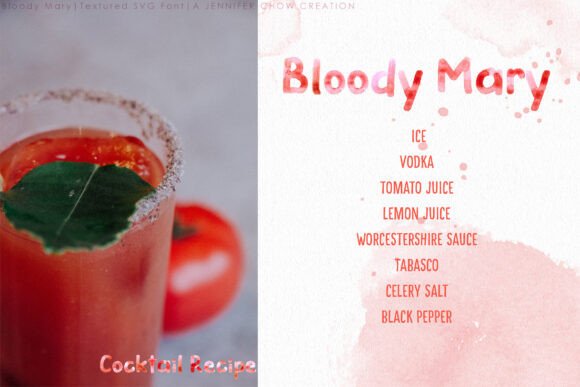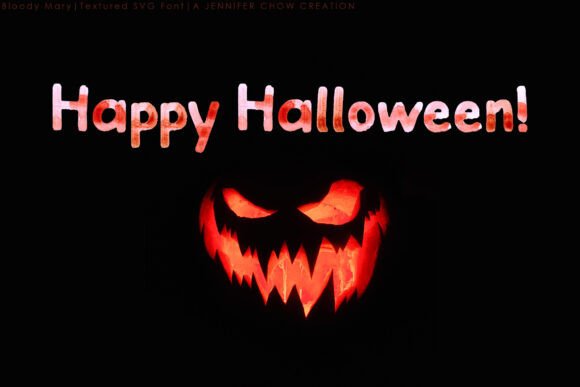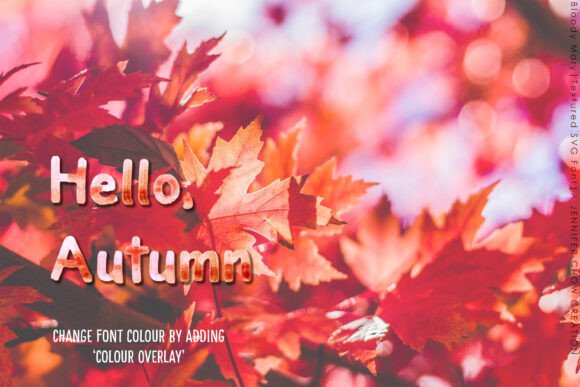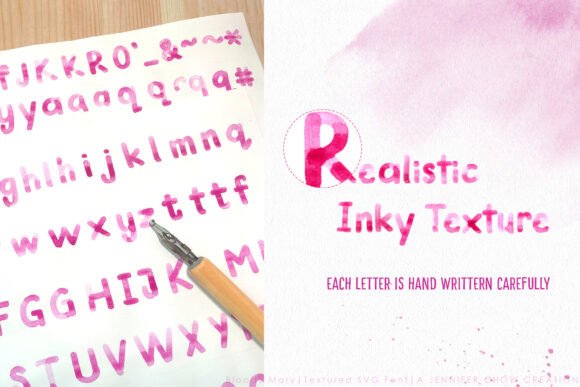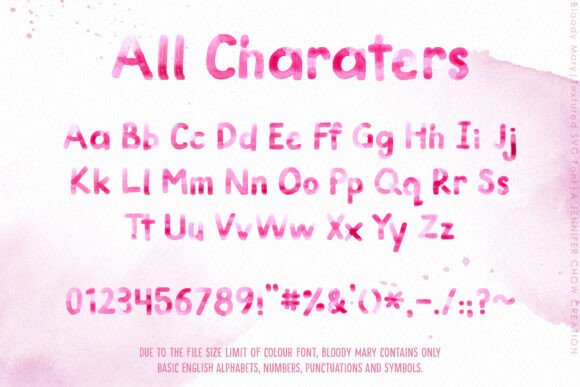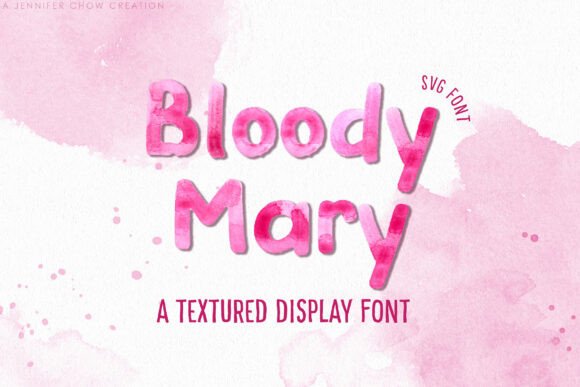
Bloody Mary Font: Adding a Playful Touch to Your Designs
Are you looking for a font that can add a dash of playfulness and authenticity to your designs? Look no further than the Bloody Mary font! This cute and bold color font is perfect for children’s activities, school projects, and any design that needs a fun and lively touch.
What is Bloody Mary Font?
Bloody Mary font is a chunky lettered font that is designed to make your designs come alive. It’s a unique and eye-catching font that features bold, colorful letters that are sure to grab attention. The font is perfect for designers and crafters who want to add a playful touch to their work.
Characteristics of Bloody Mary Font
So, what makes Bloody Mary font so special? Here are some of its key characteristics:
• Bold and colorful: The font features bold, colorful letters that are sure to stand out.
• Chunky lettering: The font has a chunky, hand-drawn feel that gives it a playful and authentic look.
• Playful and fun: The font is designed to be playful and fun, making it perfect for children’s activities and school projects.
• Easy to read: Despite its bold and chunky design, the font is easy to read and understand.
Uses of Bloody Mary Font
Bloody Mary font is a versatile font that can be used in a variety of designs, including:
• Children’s activities: The font is perfect for children’s activity sheets, worksheets, and coloring pages.
• School projects: The font is great for school projects, presentations, and posters.
• Crafting: The font is perfect for crafters who want to add a playful touch to their projects, such as scrapbooking, card making, and DIY signs.
• Digital designs: The font can be used in digital designs, such as social media graphics, blog posts, and website headers.
Tips for Using Bloody Mary Font
Here are some tips for using Bloody Mary font in your designs:
• Use it sparingly: While the font is playful and fun, it can be overwhelming if used too much. Use it sparingly to add a pop of color and interest to your design.
• Pair it with other fonts: The font pairs well with other fonts, such as sans serif fonts and script fonts. Experiment with different font combinations to find the perfect look for your design.
• Experiment with colors: The font comes in a variety of colors, but you can also experiment with different colors to find the perfect look for your design.
In conclusion, Bloody Mary font is a cute and bold color font that is perfect for adding a playful touch to your designs. Its chunky lettering and bold colors make it a great choice for children’s activities, school projects, and any design that needs a fun and lively touch. With its versatility and ease of use, Bloody Mary font is a great addition to any designer’s or crafter’s toolkit.